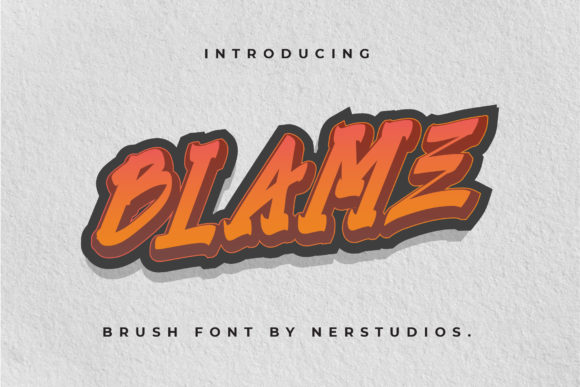
In the kaleidoscope of typography, there exists a renegade font, an audacious creation named Blame Font, a testament to the boundless audacity of human creativity. Blame Font is not merely a collection of characters; it is a defiant rebellion against the mundane, an expression of individuality that demands attention, and an embodiment of urban artistry.
Blame Font is a thick-lettered, graffiti-styled display font that commands attention with its futuristic, street art vibe. Its bold, unapologetic strokes evoke a sense of rebellion and freedom, inviting you to embrace your wild side and express your true self. Whether you're a daring designer, a fashion-forward entrepreneur, or a renegade artist, Blame Font is your weapon of choice, ready to unleash your creativity upon the world.
Crafted meticulously by Nerdstudio, a collective of ingenious font artisans, Blame Font is a versatile masterpiece, equally suited for the urban playground and the digital realm. It exudes confidence on t-shirts, sportswear, and clothing, giving your designs an edge that sets them apart. It demands attention in logos and advertisements, making your brand stand out from the crowd. Blame Font is a rebel with a cause, a catalyst for creative expression, and an invitation to break free from the ordinary.
When you choose Blame Font, you're not just downloading a font; you're embracing a defiant spirit, a fearless attitude, and an unwavering commitment to self-expression. You're joining a community of rebels, dreamers, and disruptors who refuse to conform to the norm. Blame Font is more than a font; it's a statement, a declaration of your individuality, and a bold step into the extraordinary.